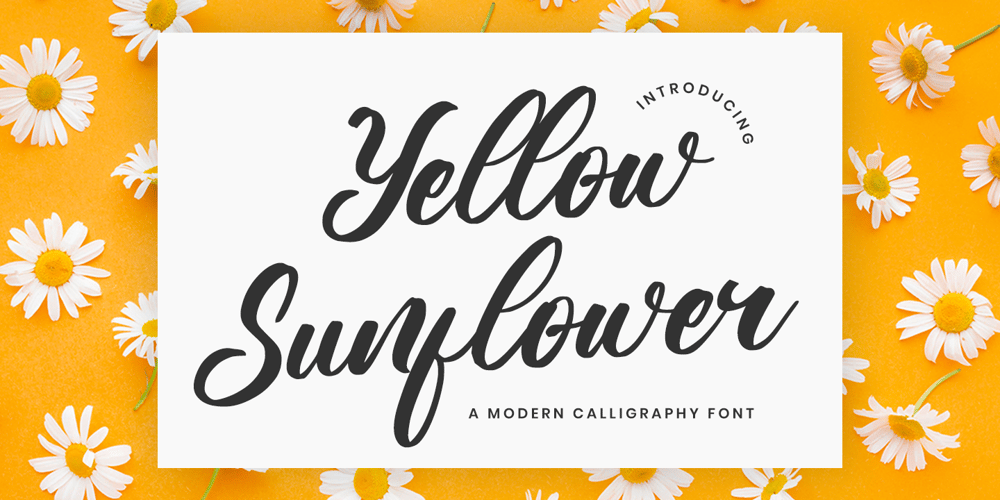
Yellow Sunflower Font Family was designed by Novia Himatunnisa and published by Nissa Nana. Yellow Sunflower contains 1 styles and family package options. Yellow Sunflower is an exquisite handwritten font, masterfully designed to become a true favorite. It maintains its classy calligraphic influences while feeling contemporary and fresh. Fall in love with it and bring your projects to the highest levels!